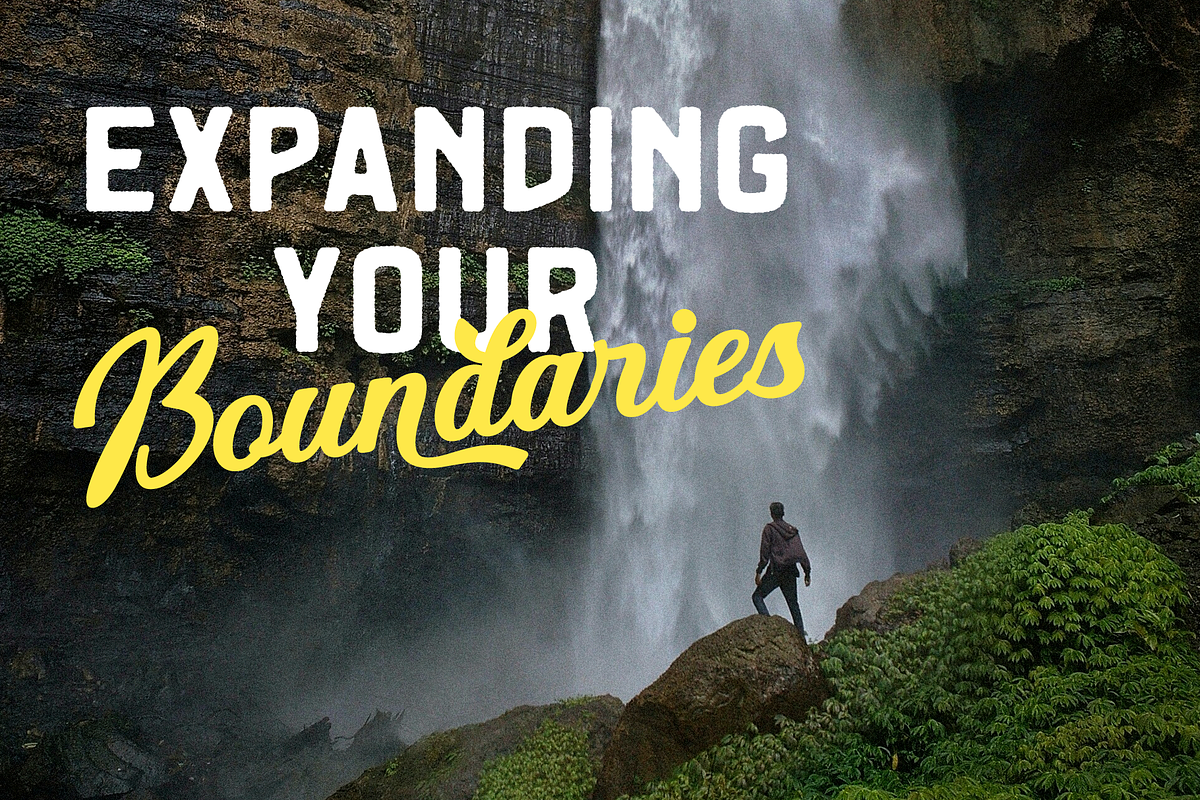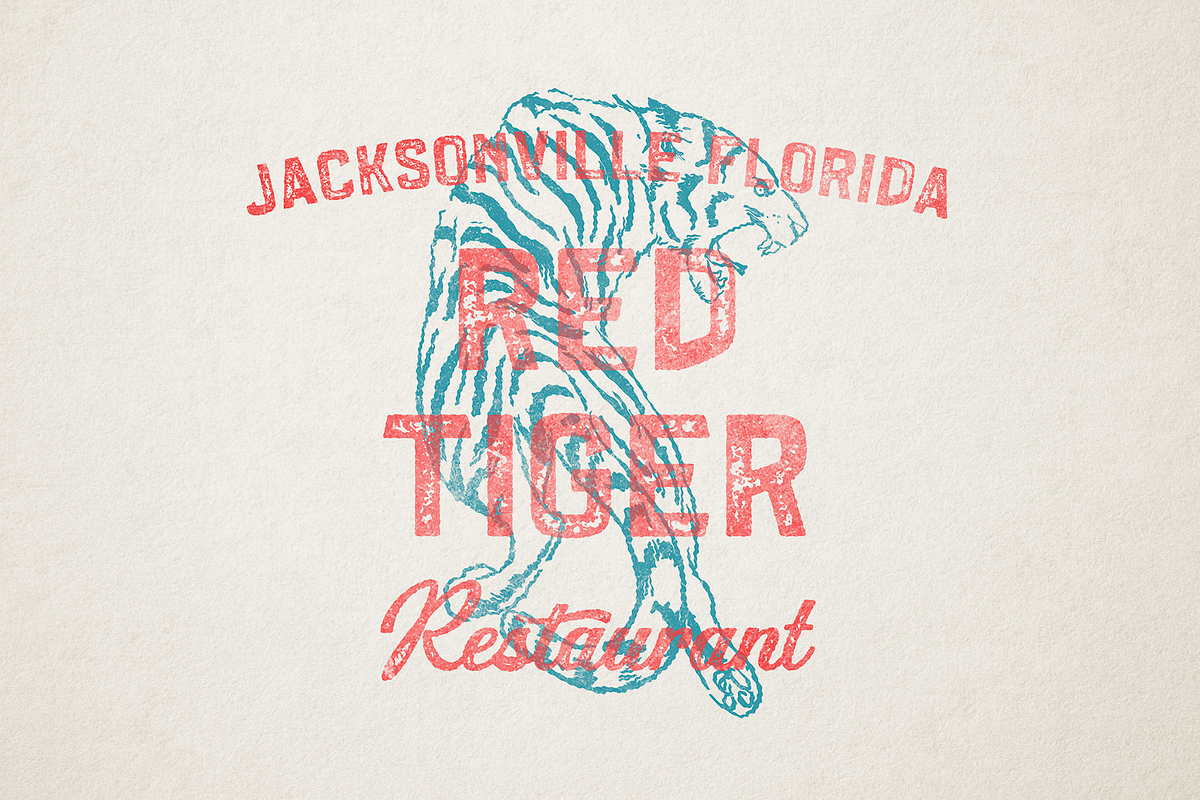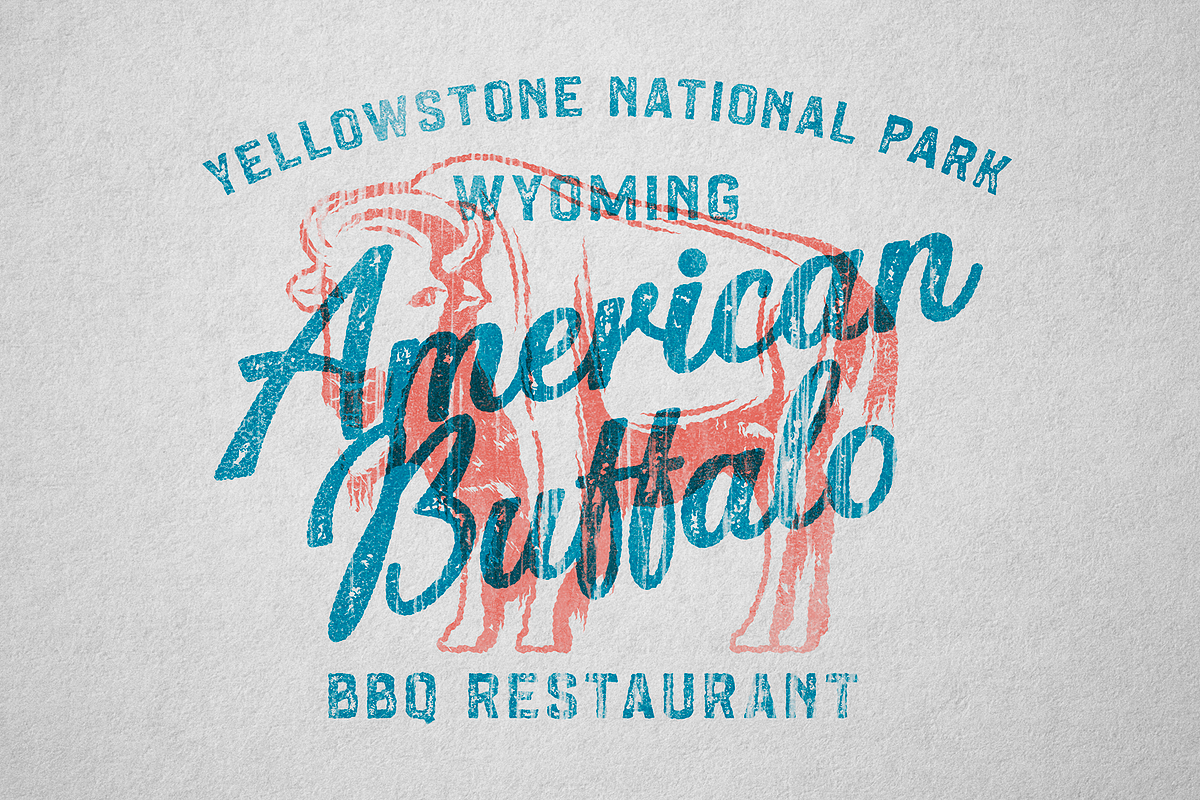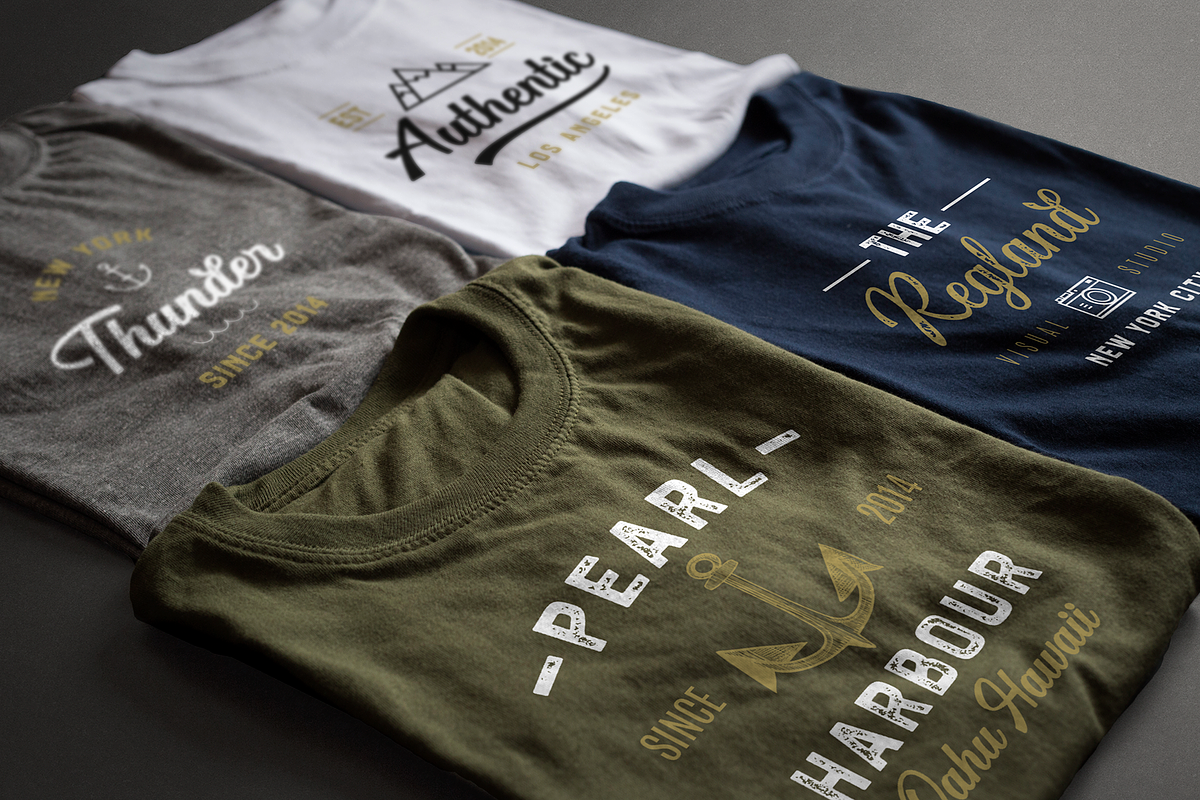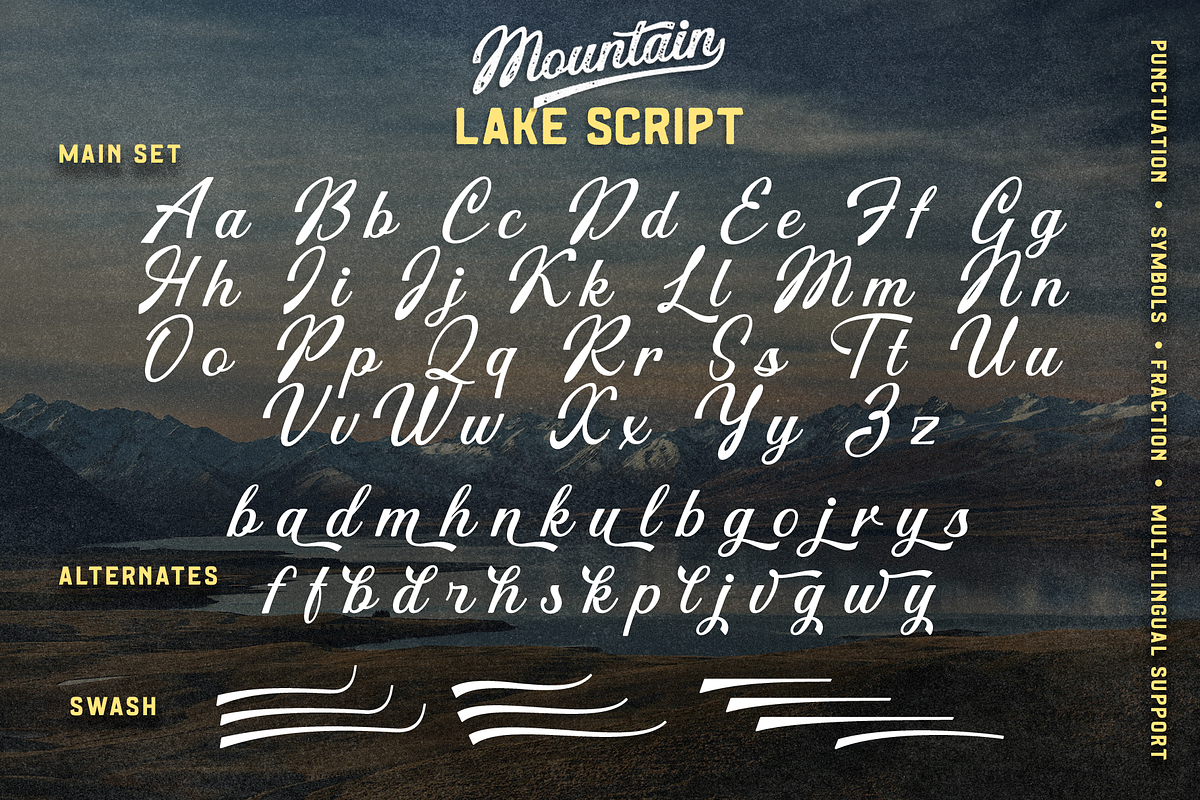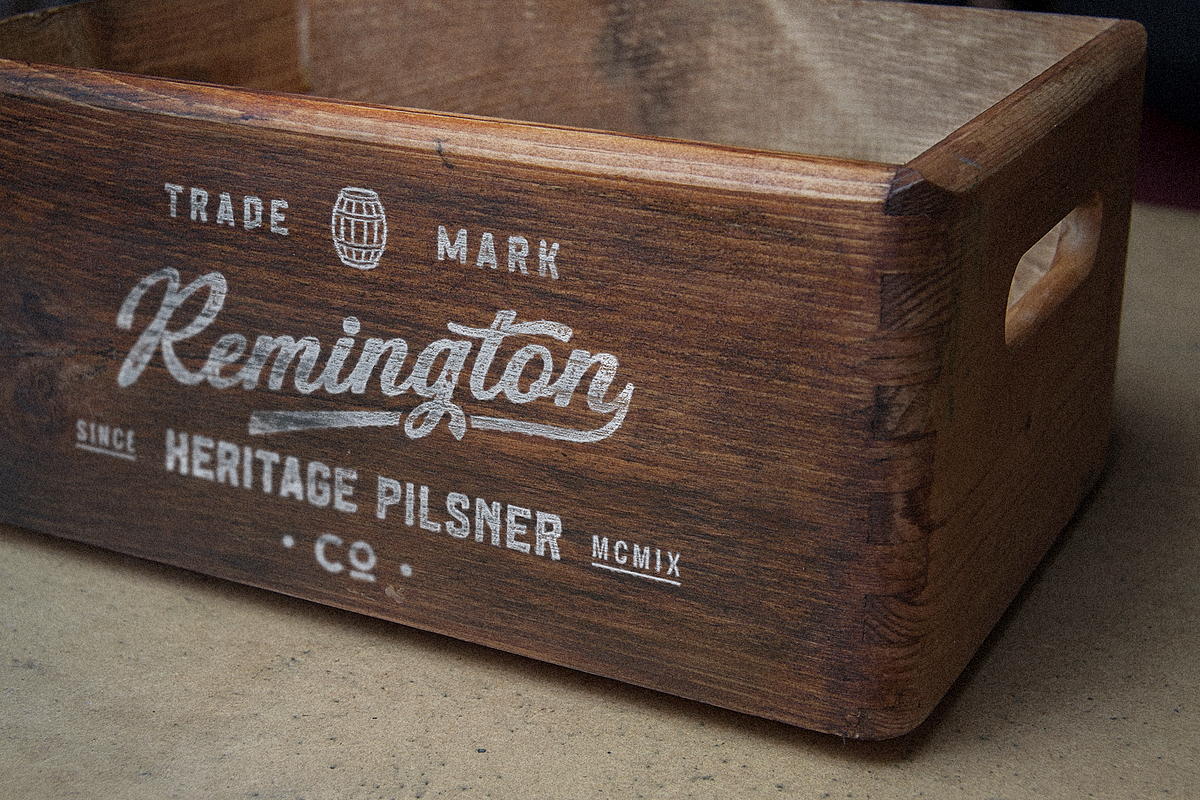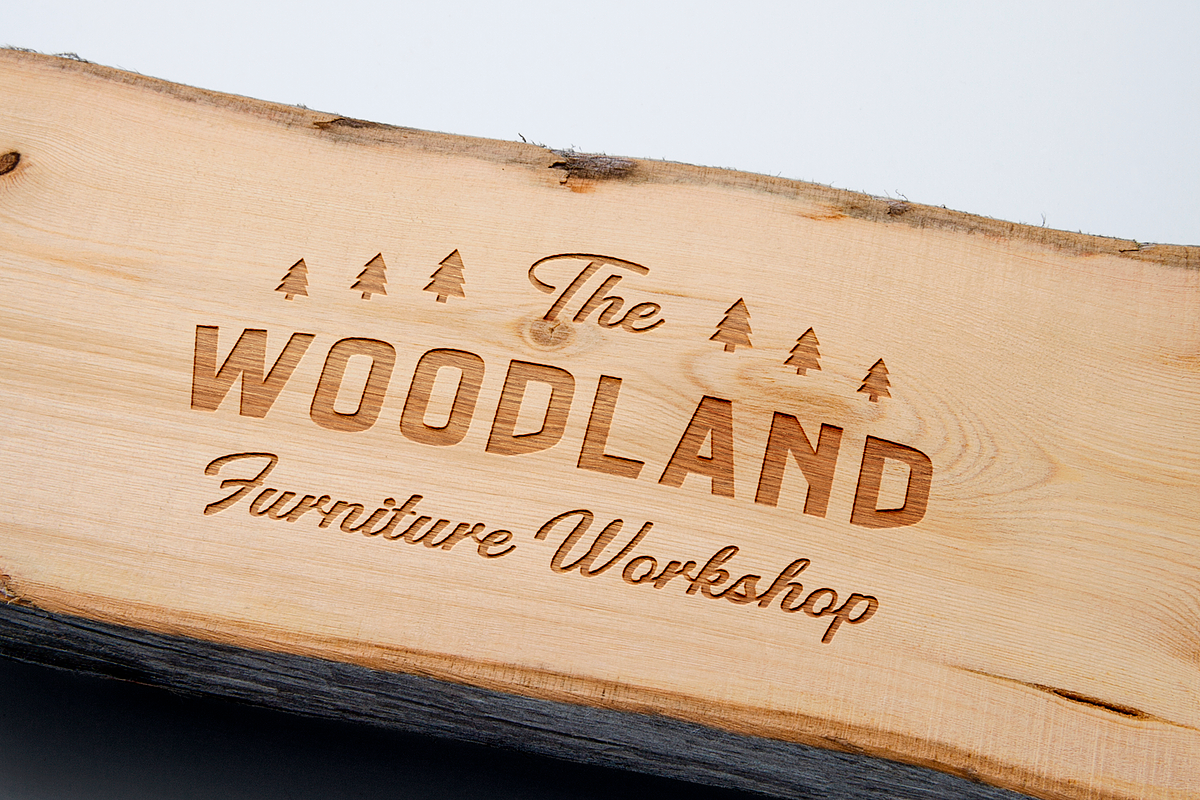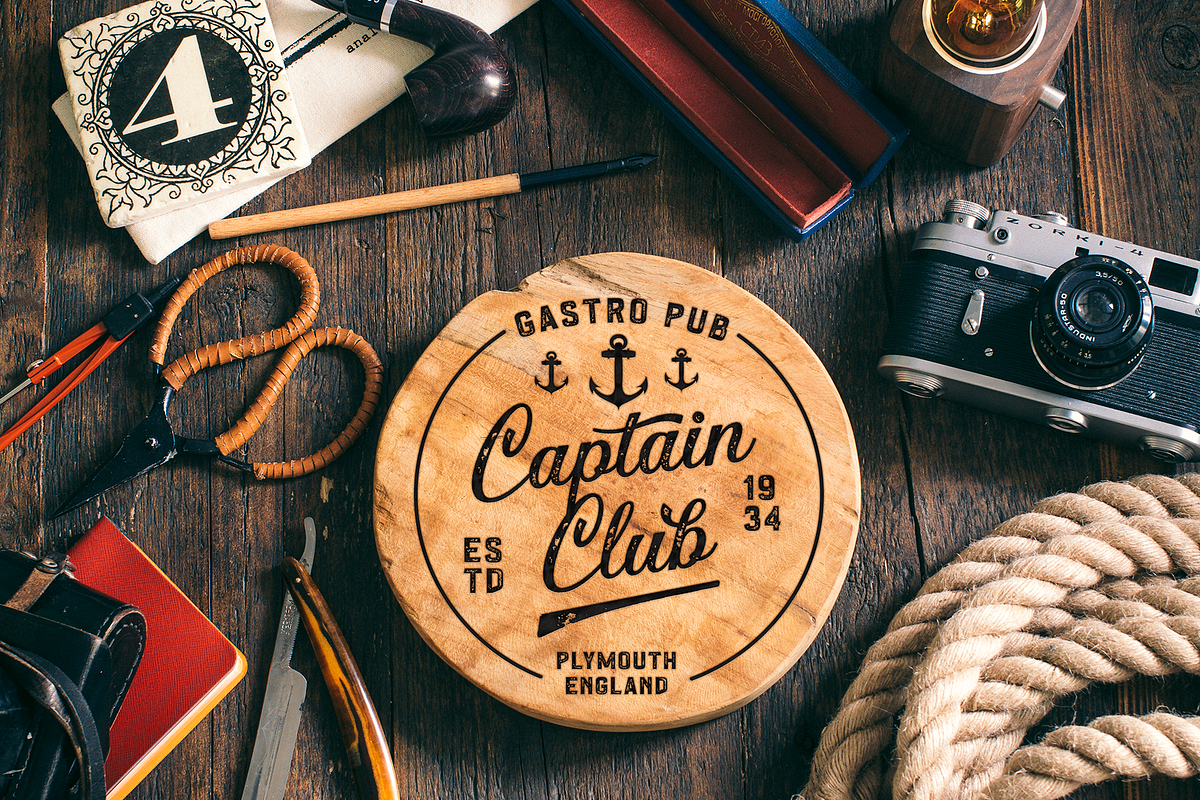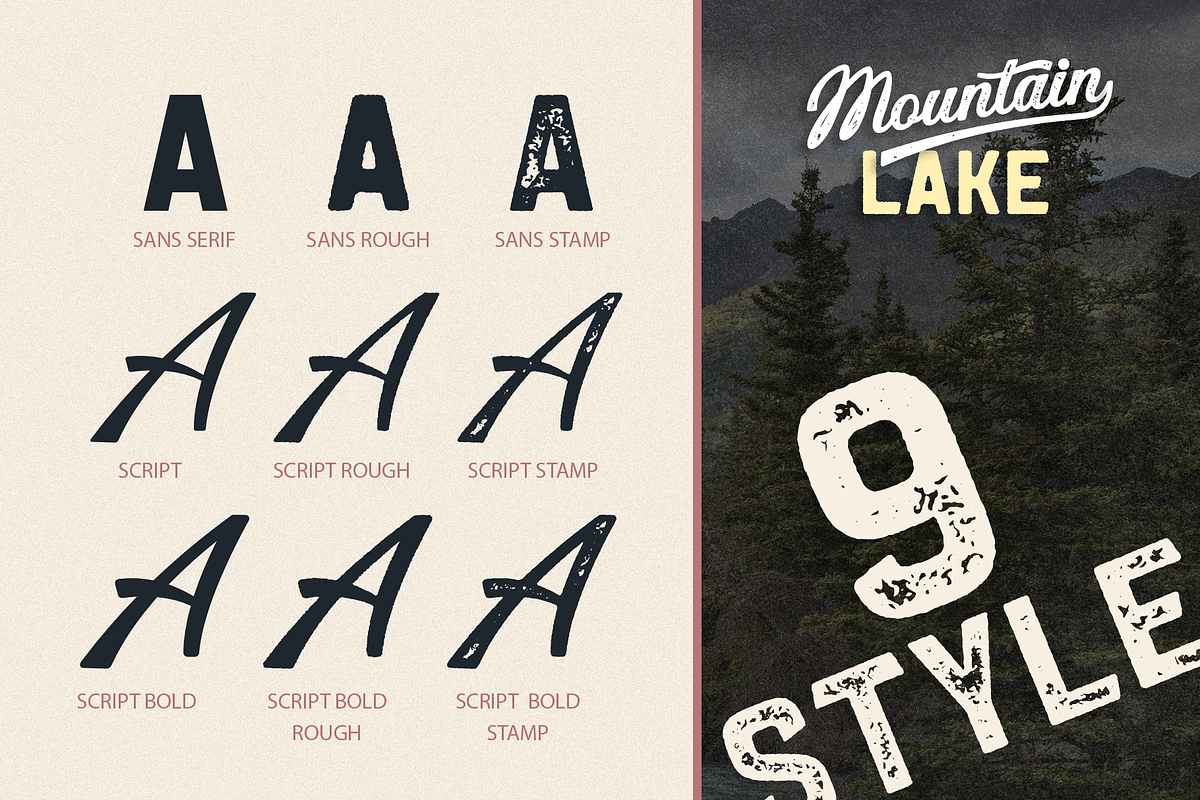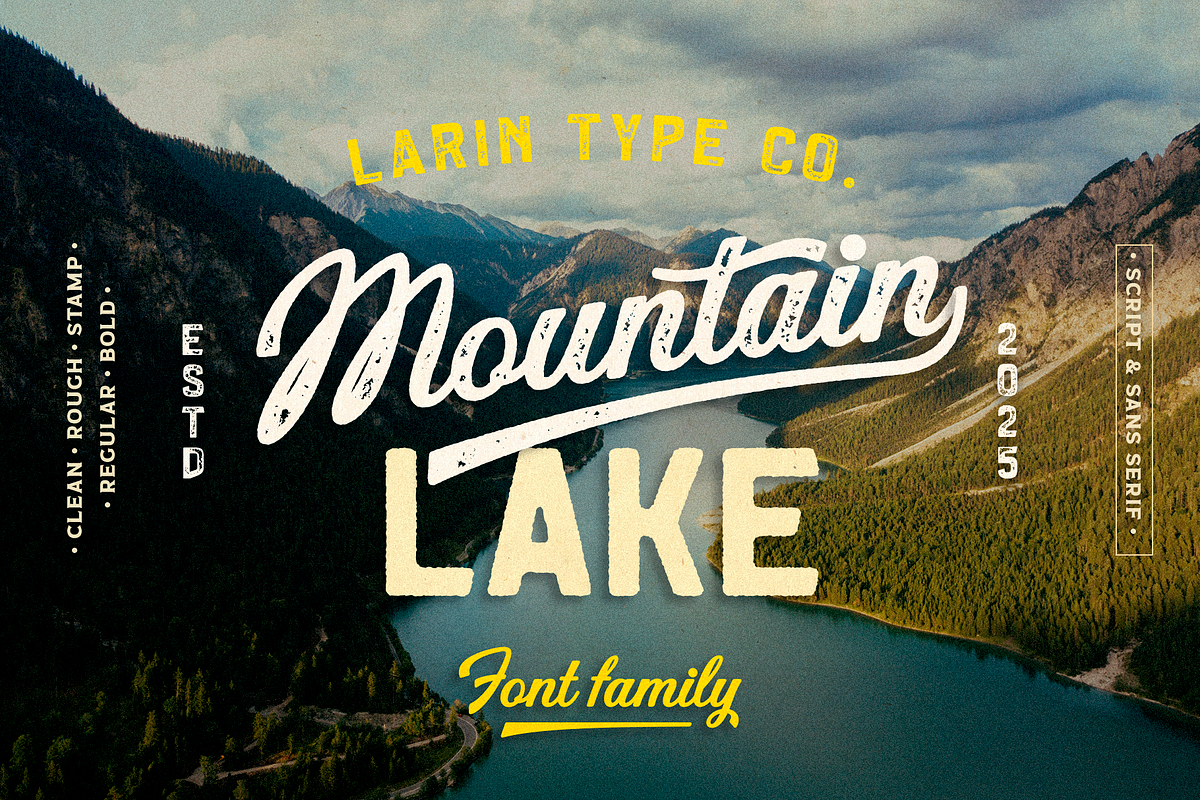
Mountain Lake
Mountain Lake is a vintage collection of fonts that includes sans serif, script and script bold, each of them has three style - Clean, Rough and Stamp style. Also for the scripts includes Alternates and Swashes. This collection was inspired by vintage signage, logos and this fonts are perfectly suitable for any vintage project and will make it at a high level.
Following international symbols support: ÀÁÂÃÄÅĄÇĆÈÉÊËĘÌÍÎÏÐÑŃŁÒÓÔÕÖØÙÚÛÜŚŠŸÝŹŻŽßàáâãäåçèéêëìíîïðñòóôõöøùúûüýÿąćęłńśšźżž
- Full Capital alphabet A-Z for Sans Serif
- Full alphabet Uppercase and Lowercase A-z for Script
- Numbers, fractions for Sans Serif and Script
- Punctuation and symbols for Sans Serif and Script
- Alternates for Lowercase for Script
- Multilingual support for Sans Serif and Script